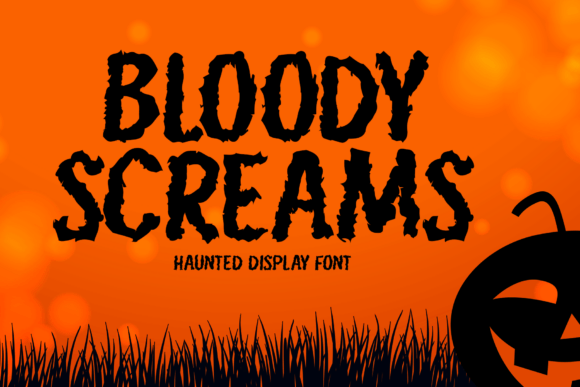
Unleash the Horror: The Bloody Screams Font
Have you ever stared at a blank design canvas, feeling the pressure to create something truly spine-tingling for a spooky project? You’re not alone. Whether it’s a haunted house flyer, a horror movie poster, or a creepy website design, we’ve all been there – searching for the perfect font to send chills down our audience’s spines.
Enter the Bloody Screams Font, a haunting display font designed specifically for those who dare to push the boundaries of design. With its dramatic, eye-catching style, this typeface is the perfect tool for unleashing your creativity and delivering a truly unforgettable experience. As a designer, you know the value of a well-crafted font in setting the tone for your project – and Bloody Screams Font is sure to be a game-changer.
Bloody Screams Font Key Features
- Font Family: Bloody Screams is a unique, hand-drawn font designed to evoke a sense of horror and eeriness.
- Character Set: Bloody Screams includes a comprehensive set of characters, including uppercase and lowercase letters, numbers, punctuation marks, and special characters.
- Unique Characteristics: The font features hand-drawn, distressed elements, such as bloodstains, tears, and other imperfections, adding to its eerie and unsettling atmosphere.
Bloody Screams Font Review
At first glance, the Bloody Screams font is quite eye-catching. It’s perfect for creating a dramatic or spooky atmosphere in designs. ✨ The bold, handwritten feel is great for adding a sense of urgency or excitement to your content. It’s also versatile and can be used in various contexts, from horror-themed projects to music festivals or events.
- Unique and memorable: The Bloody Screams font is certainly one-of-a-kind, making it a great choice for designers looking to create a distinctive visual identity.
- High contrast: The font’s high contrast between thick and thin lines creates a sense of drama and energy, making it perfect for grabbing attention.
- Fun and expressive: The Bloody Screams font is great for designers who want to add a bit of personality and whimsy to their projects.
However, there are a few limitations to consider: ⚠️ The font may be too over-the-top for some projects, and its dramatic feel may not be suitable for all audiences. Additionally, the font’s thick lines may not render well in smaller sizes or low-resolution environments.
Overall, the Bloody Screams font is a great choice for designers who want to create a bold, eye-catching visual identity. While it may have some limitations, its unique feel and versatility make it a valuable addition to any designer’s toolkit.
Use the Bloody Screams Font to create a bold and attention-grabbing effect in your designs.
Pair the font with a contrasting color to make it stand out.
Use the Bloody Screams Font for:
Horror movie posters and promotional materials.
Spooky and Halloween-themed designs.
Edgy and avant-garde artwork.